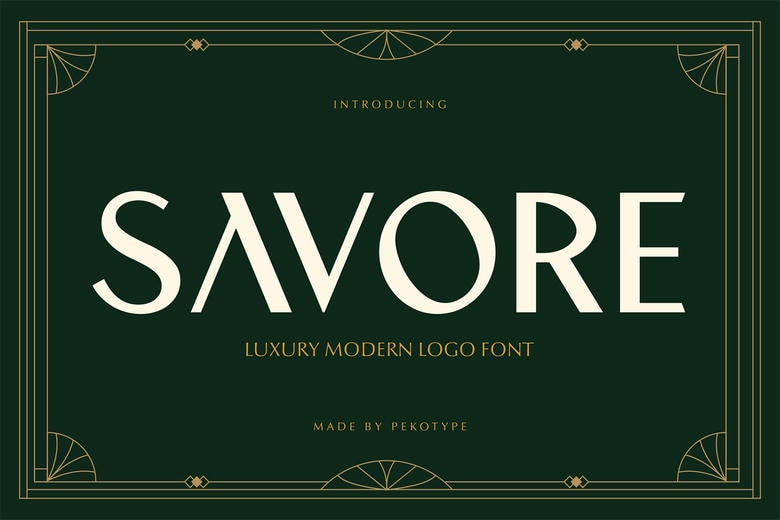
SAVORE is a contemporary luxury display typeface based on Art Deco style. The letterforms are clean, geometric and a bit decorative, which makes it look classy and premium without being too heavy. It is very visual and has beautiful forms that render each word fashionable and classic. SAVORE is simple to operate with uppercase, numbers, symbols and multilingual features, making it suitable to numerous high-end design projects.
This font is perfect for luxury branding, fashion labels, hotels, wedding designs, packaging, and logo design. It is perfect in invitations, product labels, social media posts, and high-end brand images- just as the preview with beautiful layouts, packaging, and signage. In case you desire a font that is modern, stylish and exclusive, then SAVORE is a good option.
Savore Display Font